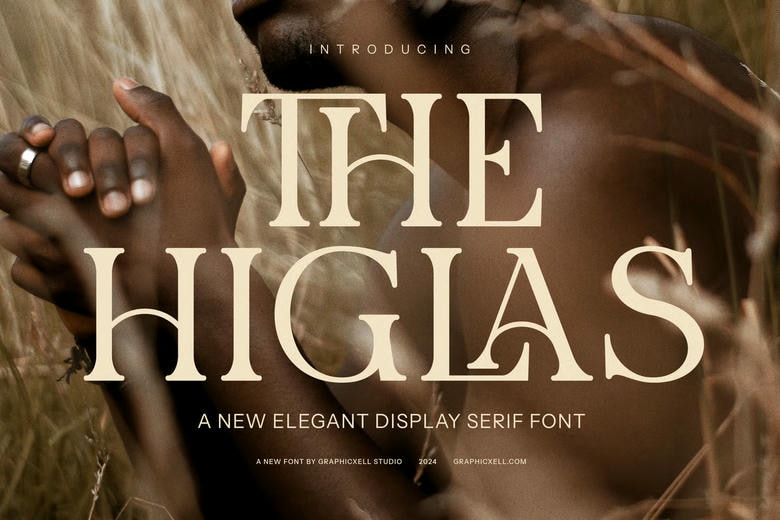
The Higlas Font
The Higlas Elegant Serif Font is a sophisticated typeface that perfectly balances timeless elegance with modern appeal. Crafted with precision, this font features beautifully refined serifs, carefully designed ligatures, and a variety of alternate characters, making it a versatile choice for designers who appreciate both tradition and innovation. The Higlas is ideal for projects that require a polished, high-end look while maintaining readability and personality.
What sets The Higlas apart from other serif fonts is its meticulous attention to detail. The ligatures are uniquely designed, giving the font an artistic and cohesive flow, while the alternate forms add an extra layer of creativity, allowing designers to experiment with different styles within a single typeface. These distinctive features make it perfect for a range of creative projects, from branding to editorial design.
The Higlas Elegant Serif Font